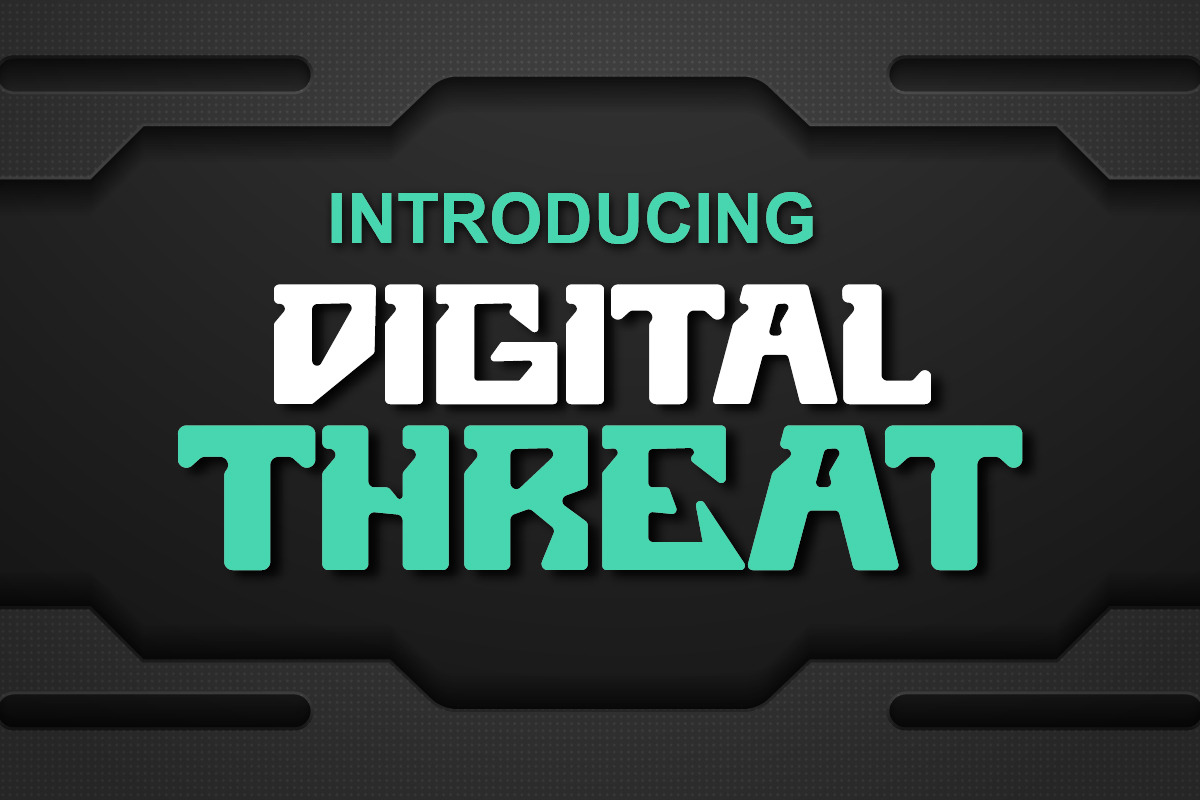
Digital Threat Robotic Display Font
Digital Threat font is our new item that suitable for your Posters.
Great for Logo, Poster, Sticker, Jersey, Invitation Card, Brochure, etc.